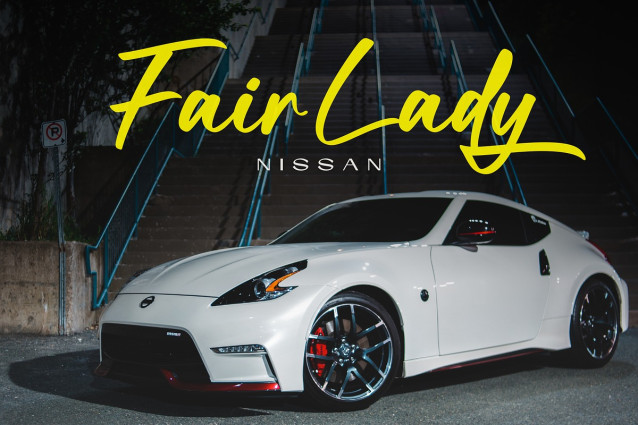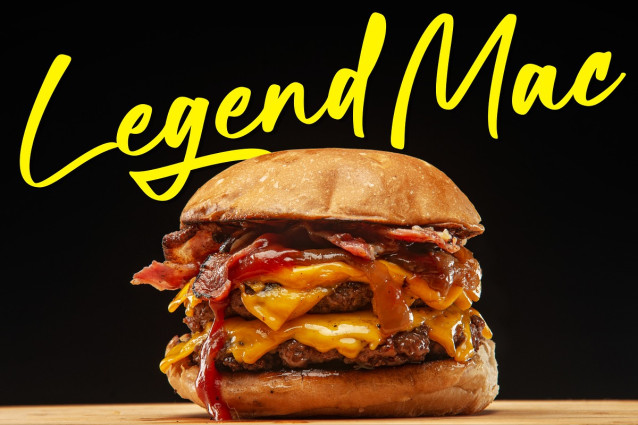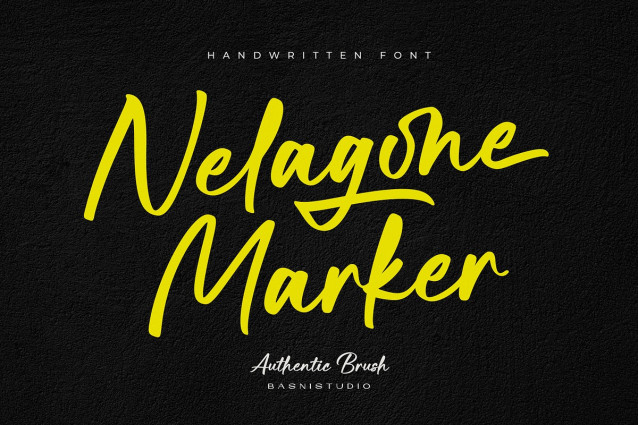
Nelagone Marker Script Font
Nelagone Marker Script Font is a bold handwritten typeface inspired by real marker strokes. It brings a fun, energetic, and expressive feel to your designs, making them stand out with a casual yet confident personality. Perfect for projects that need strong impact and easy readability while keeping a handmade touch.